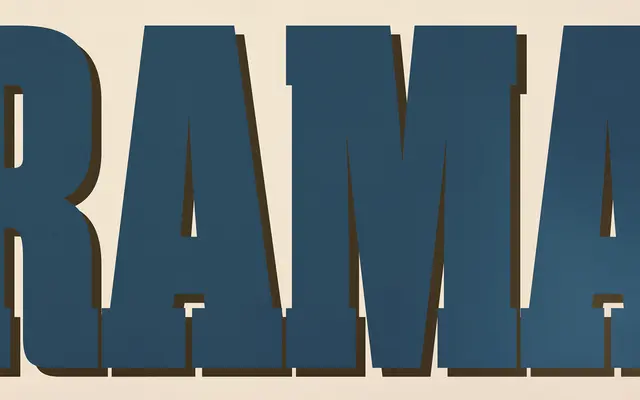
Rama Slab
A condensed, antiqued slab serif drawn from 19th-century wood type, offered in 18 styles for poster and headline use.
Each glyph carries deliberate period texture to evoke the visual weight and worn charm of letterpress wood type. The family runs 18 condensed styles, suited to posters, titles and display work where bold impact is the priority. An OpenType stylistic alternate for the letter 'r' adds a small layer of typographic flexibility.
A condensed slab serif explicitly inspired by 19th-century wood type, placing it firmly in the display slab category with strong historical vernacular roots.